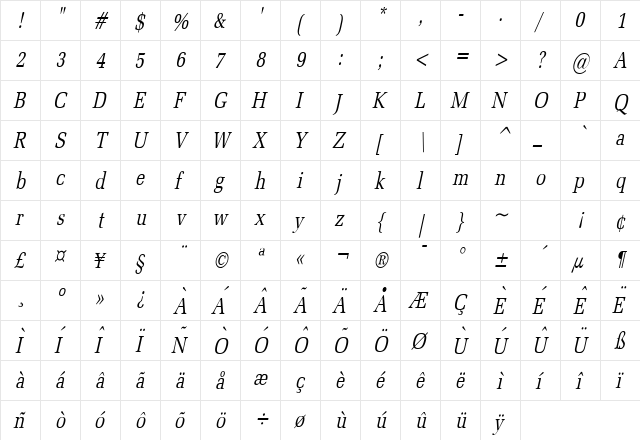
Bid Roman Thin Italic Font Preview
Design Context for Bid Roman Thin Typeface
Bid Roman Thin offers clean, dependable letterforms without strong stylistic allegiance, making it a practical choice for designers who need flexibility. The dynamic lean of this cut emphasises speed and emphasis in any layout. Its slender proportions lend an understated elegance to any composition.
Pro Tip: Try Bid Roman Thin for annotation and caption copy alongside an upright companion — the contrast in angle creates a dynamic but ordered typographic system.